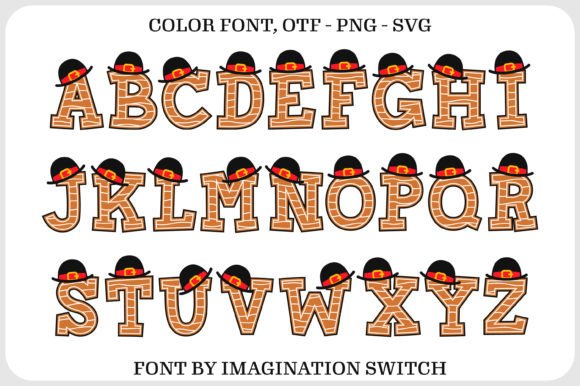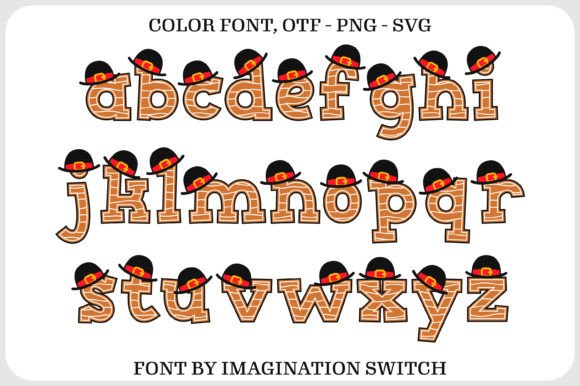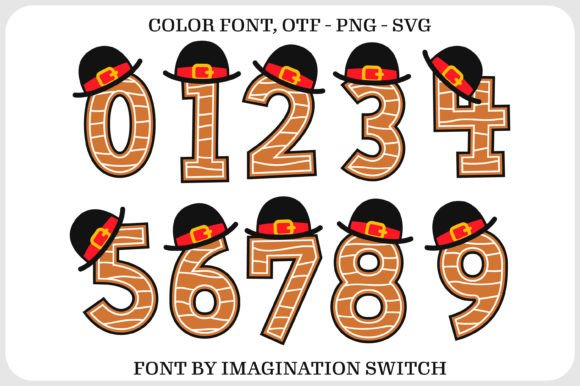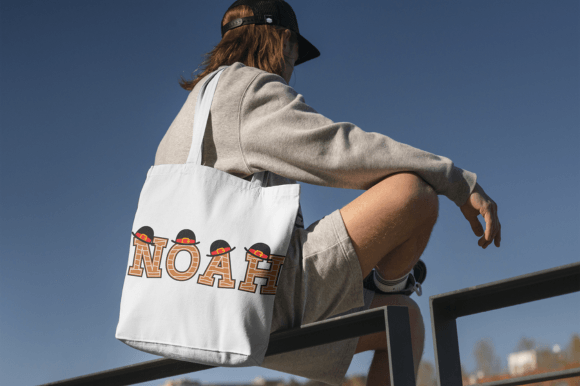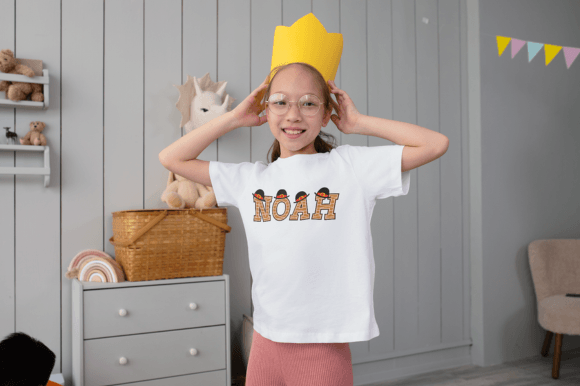
Cookies Font: Elevate Your Designs with a Pop of Color
Are you tired of using the same old fonts in your designs? Look no further than the Cookies Font, a captivating typographic creation that utilizes intriguing colors to enhance its visual appeal. This font is a game-changer for designers and crafters alike, offering a unique and creative way to make your designs stand out.
A Complete Set of Characters
The Cookies Font boasts a complete set of characters, including uppercase, lowercase, and numbers, making it incredibly versatile and flexible for various types of projects. Whether you’re working on a print design, web design, or promotional materials, this font has got you covered. With its comprehensive character set, you can create a wide range of designs, from simple and elegant to complex and bold.
Meticulously Designed for Uniqueness and Creativity
Each character in the Cookies Font has been meticulously designed to provide a unique and creative touch to your designs. The carefully chosen colors for each character add a mesmerizing visual touch, making each word and number stand out. This font is perfect for designers who want to add a pop of color to their designs and make them more engaging and memorable.
Suitable for a Wide Range of Purposes
The Cookies Font is suitable for a wide range of purposes, including print designs, web designs, promotional materials, and more. Its excellent legibility and visually appealing presentation make it an ideal choice for enhancing the visualization of your message. Whether you’re creating a logo, brochure, or social media post, this font is sure to make your design stand out.
Express Your Creativity with Every Project
With the Cookies Font, you can express your creativity in every project you undertake. This font allows you to craft unforgettable designs with a unique color touch, making it perfect for designers who want to push the boundaries of creativity. Whether you’re a professional designer or a crafter, this font is sure to inspire you to create something amazing.
Tips and Tricks for Using the Cookies Font
Here are some tips and tricks for using the Cookies Font in your designs:
- Experiment with different colors and combinations to create unique and eye-catching designs.
- Use the Cookies Font to add a pop of color to your designs and make them more engaging and memorable.
- Pair the Cookies Font with other fonts to create a bold and contrasting look.
- Use the Cookies Font for headlines, titles, and other display text to add visual interest and emphasis.
In conclusion, the Cookies Font is a game-changing typographic creation that offers a unique and creative way to enhance your designs. With its complete set of characters, meticulous design, and compatibility with various software and devices, this font is perfect for designers and crafters alike. Whether you’re working on a print design, web design, or promotional materials, the Cookies Font is sure to make your design stand out and leave a lasting impression.